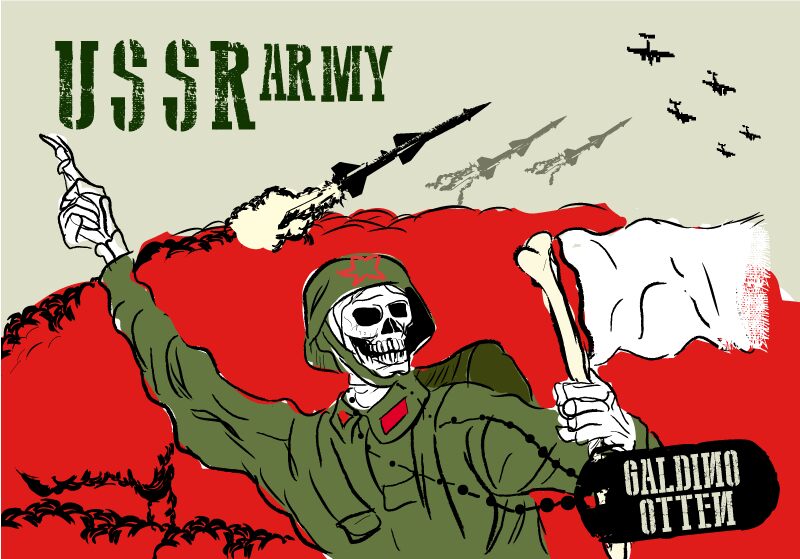
USSR Army is a free eroded military display font with a tall, compressed build and the force of stamped field lettering. Broad slab serifs and blunt joins give the forms a rigid, industrial frame. Dense scratches, chips, and broken patches vary across the strokes, making the wear look physical rather than like a light surface filter.
Used as a distressed unit marking, the lettering can become part of poster art, game graphics, apparel, and event promotion centered on combat, machinery, or hard-edged music. Its stamped texture is also suited to packaging and brand identities that borrow from surplus crates, equipment labels, and weathered metal signage.